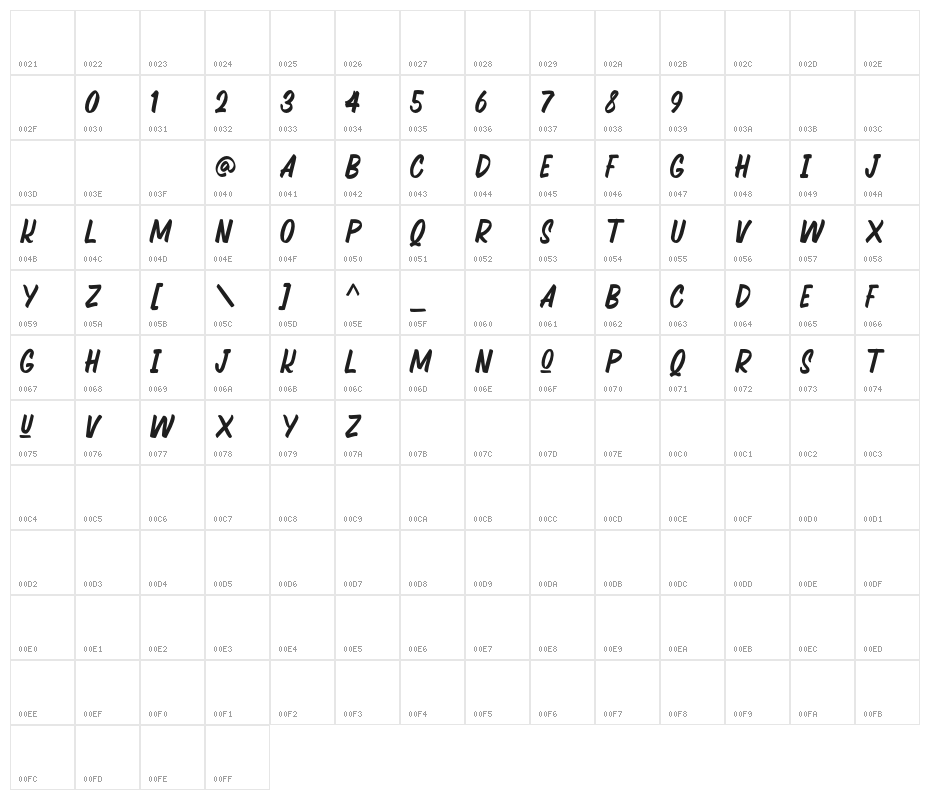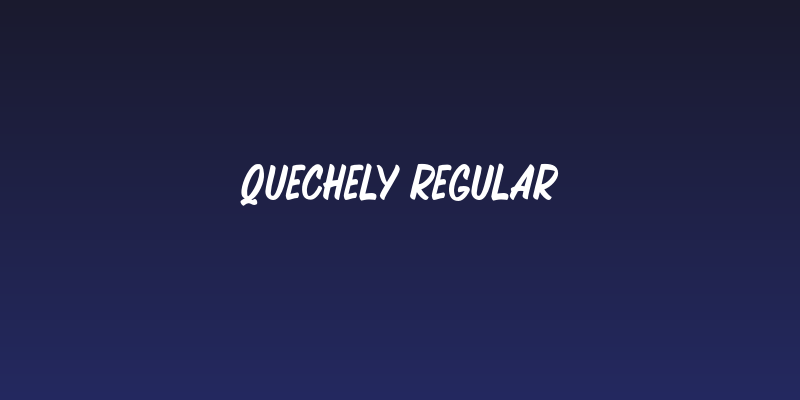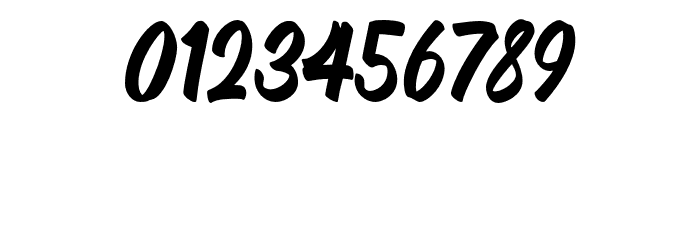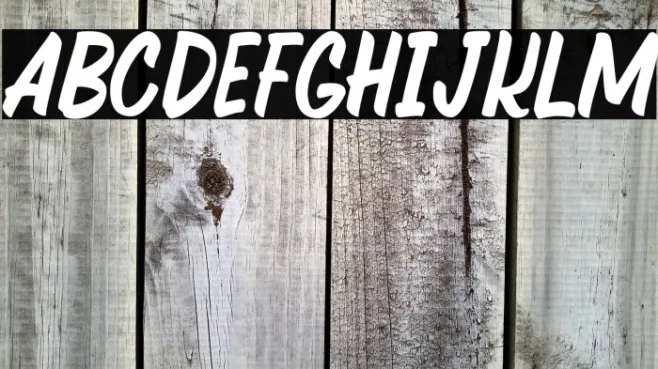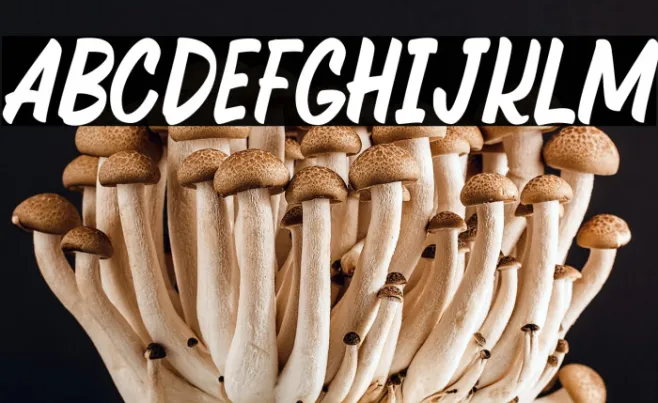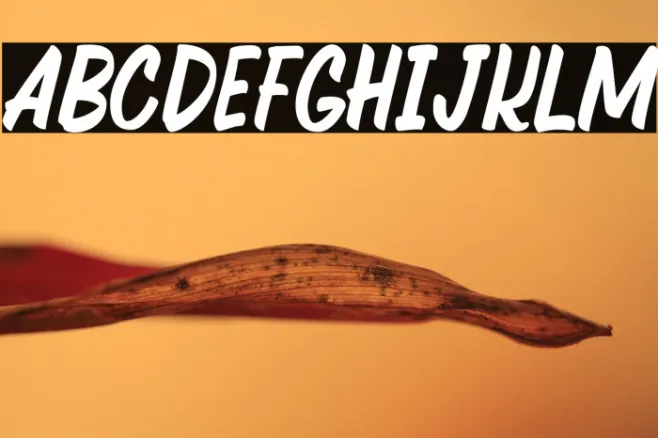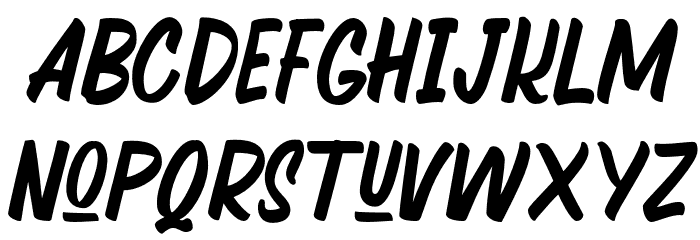
Quechely-Regular Font
Quechely-Regular Description
This font features a bold and dynamic script style with a handwritten appearance. The letters are slightly slanted, giving a sense of motion and fluidity. The strokes are thick and consistent, providing a strong visual impact. The characters are well-spaced, ensuring readability while maintaining an artistic flair. This font is ideal for projects that require a personal touch, such as invitations, posters, or branding materials. Its energetic and lively design makes it suitable for creative and expressive applications.
| Proposed Projects | Ideal for invitations, posters, branding materials, and creative projects. |